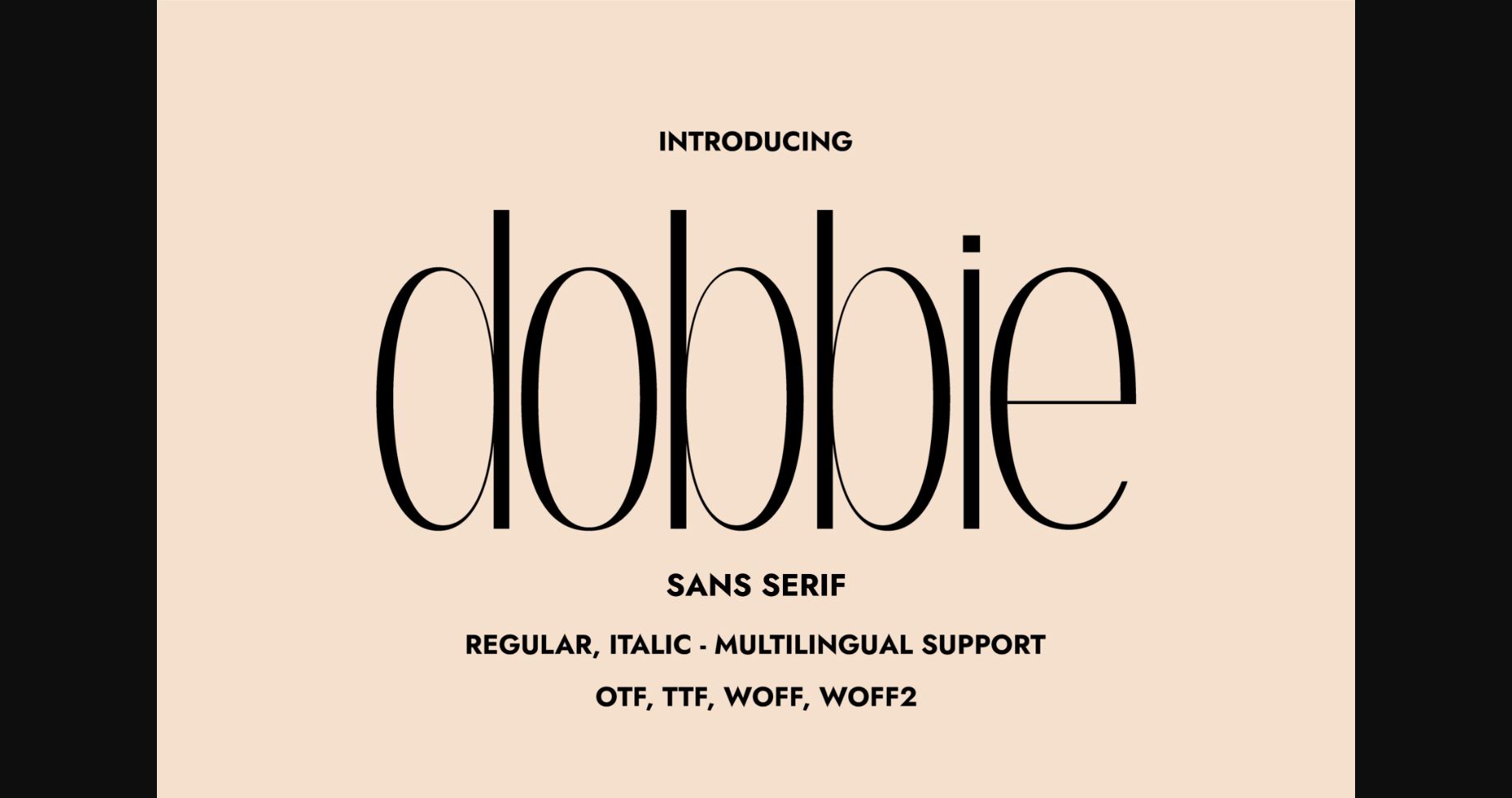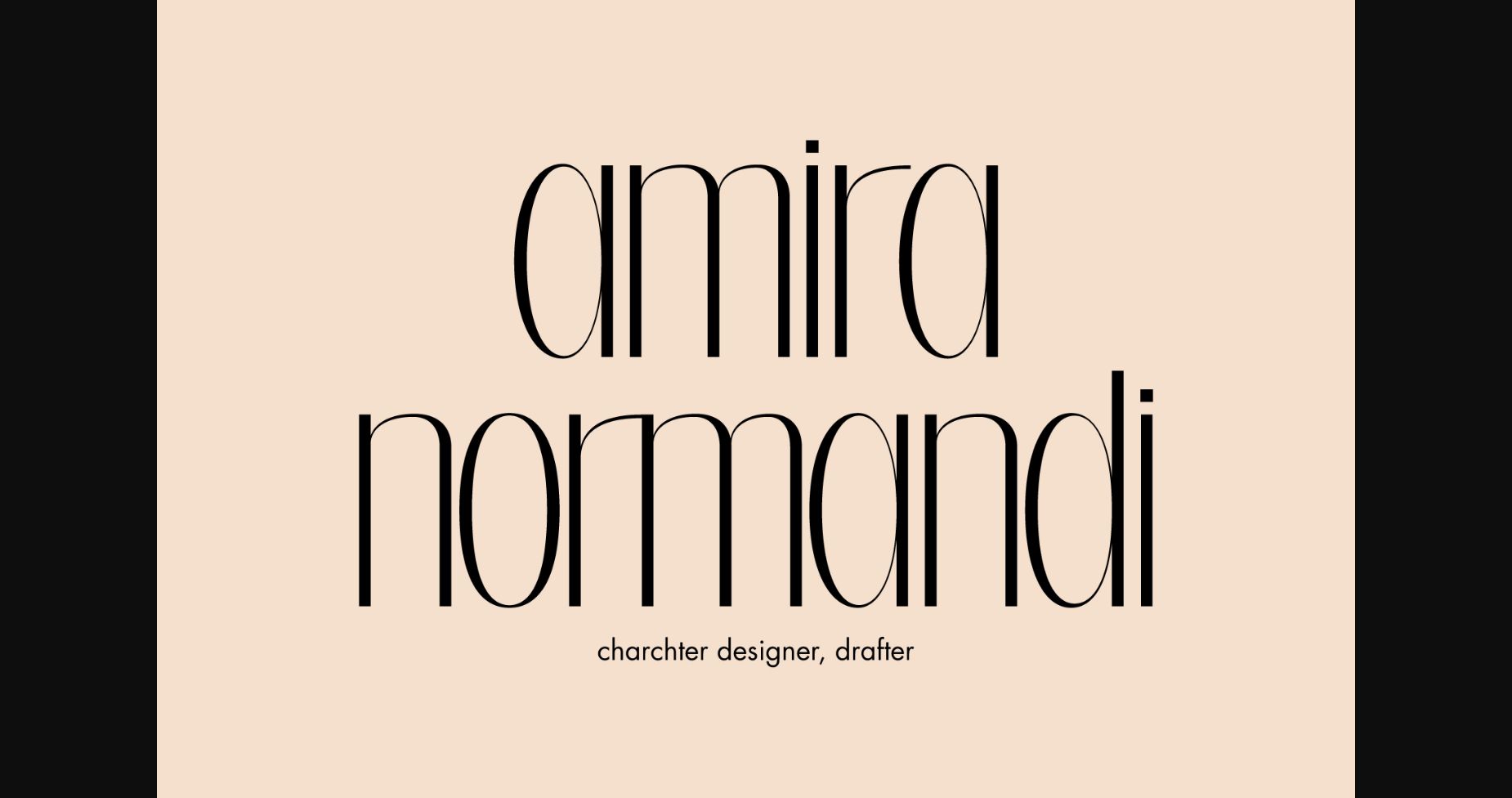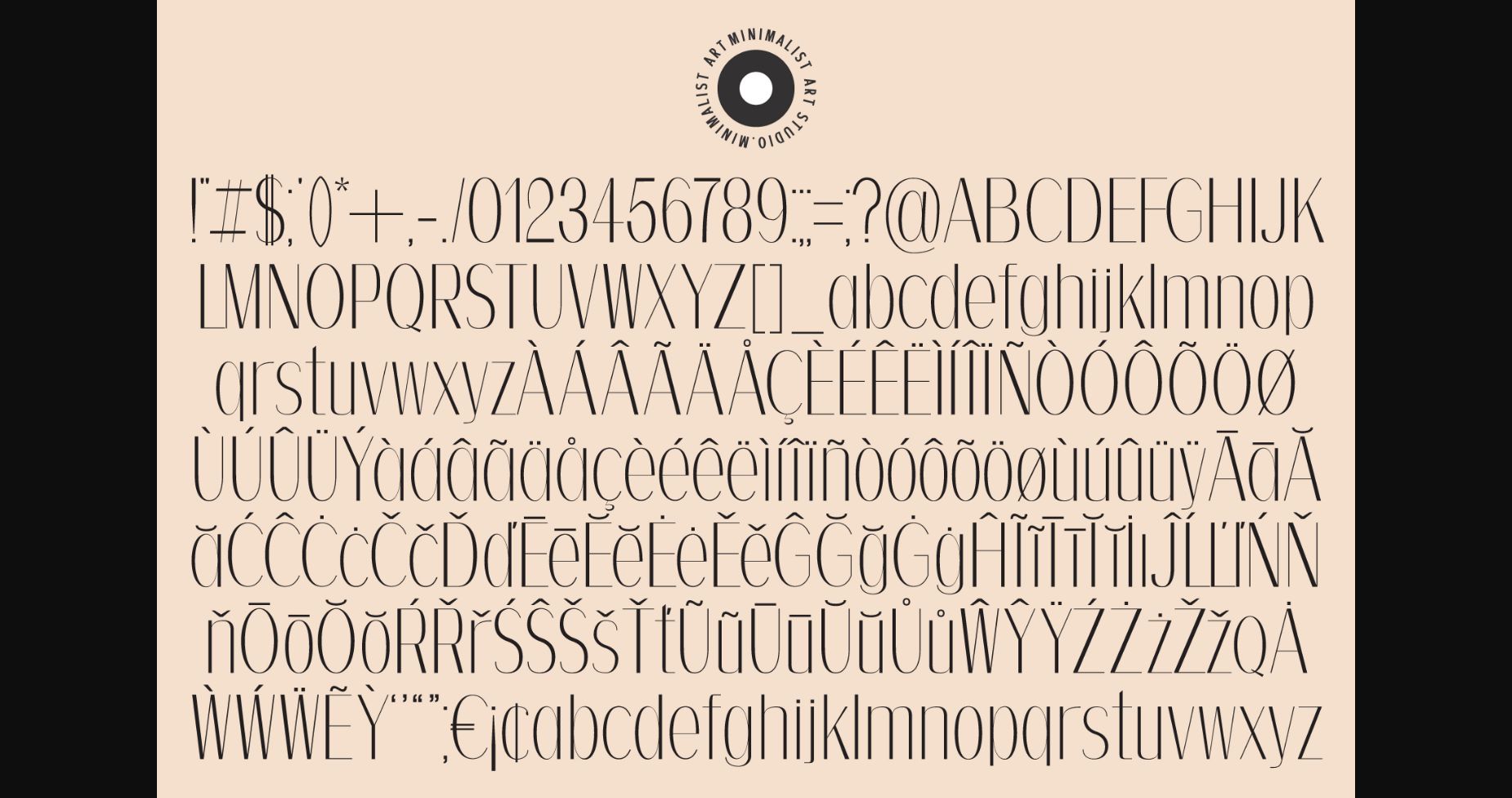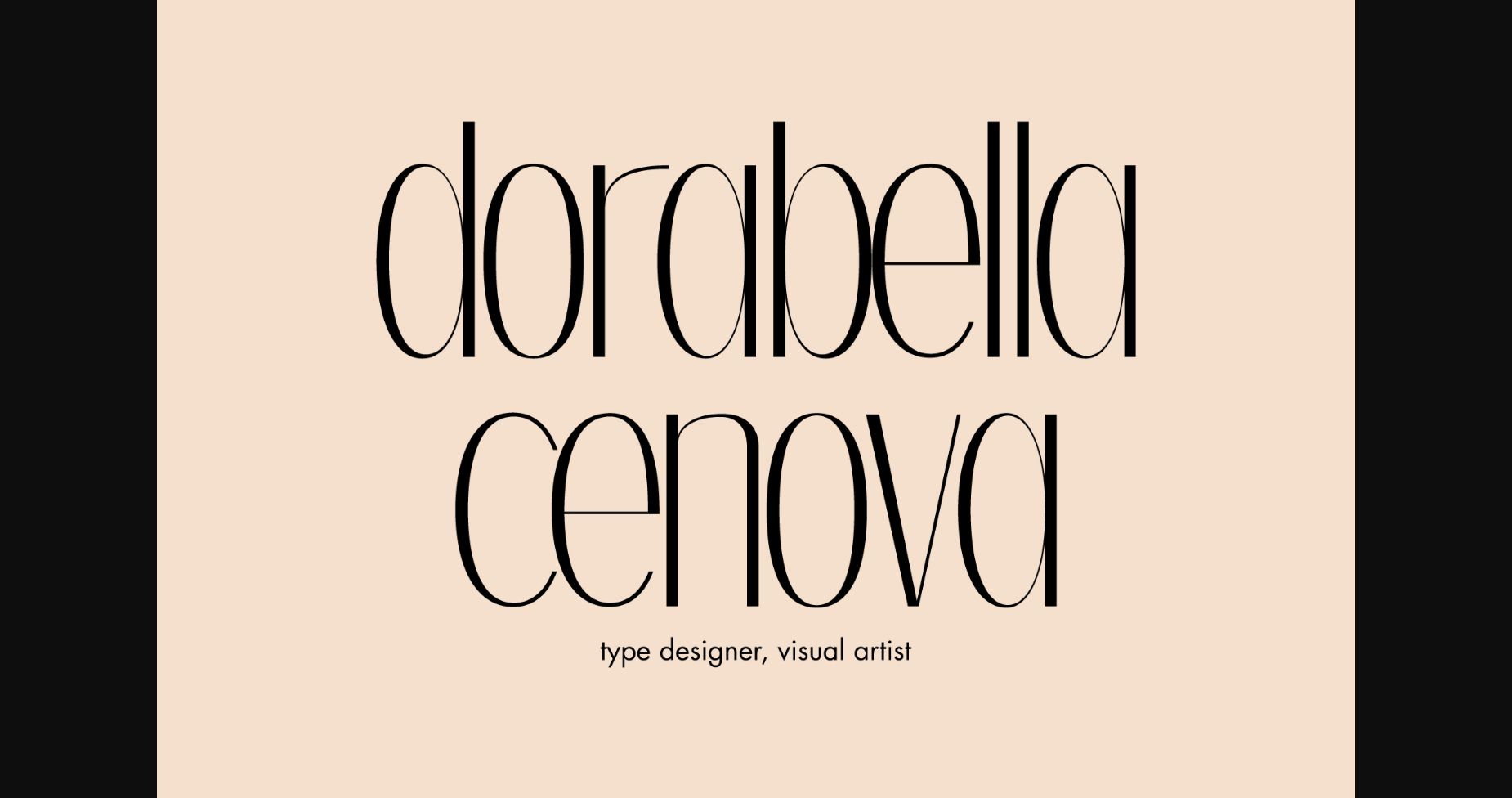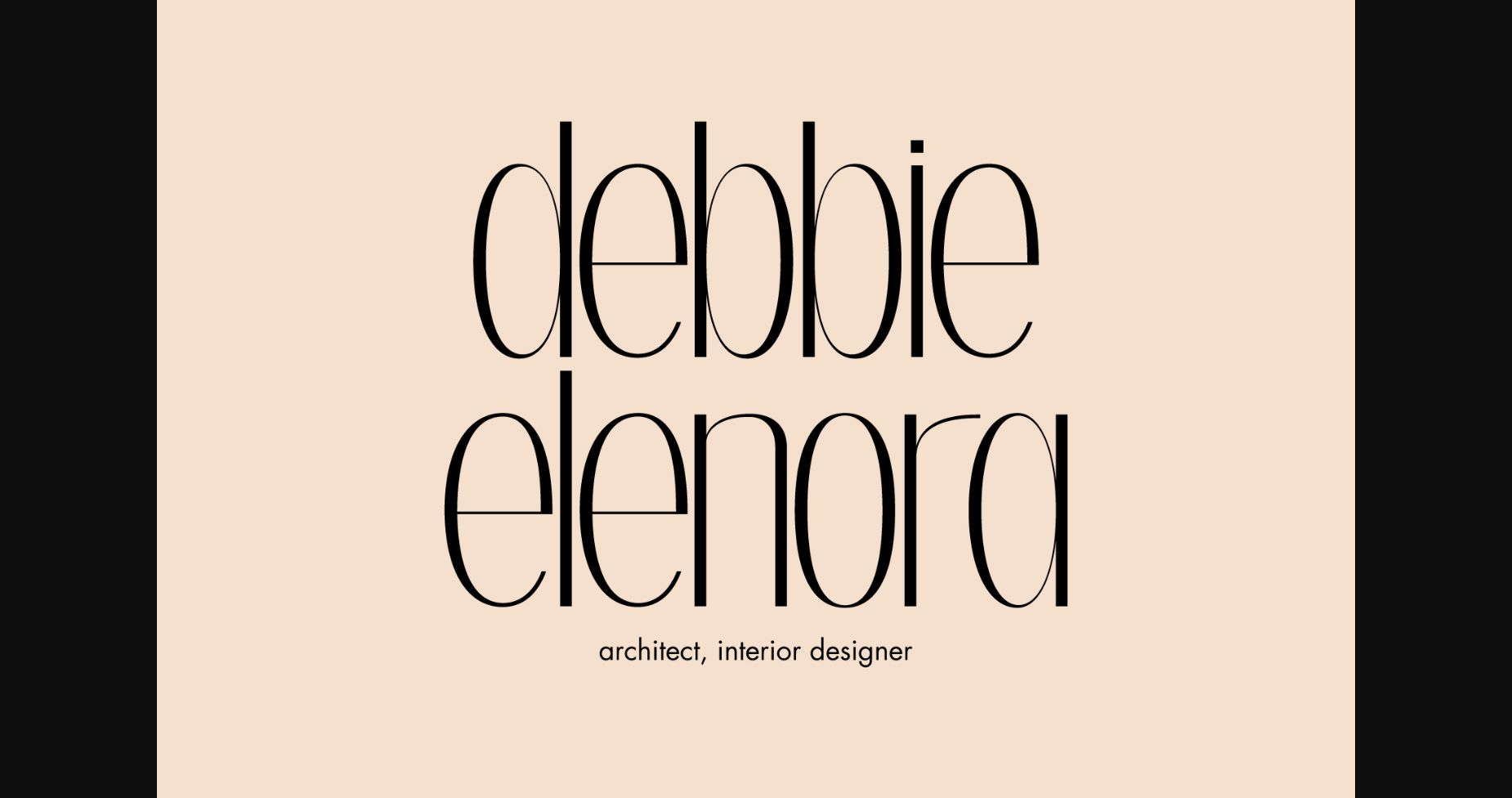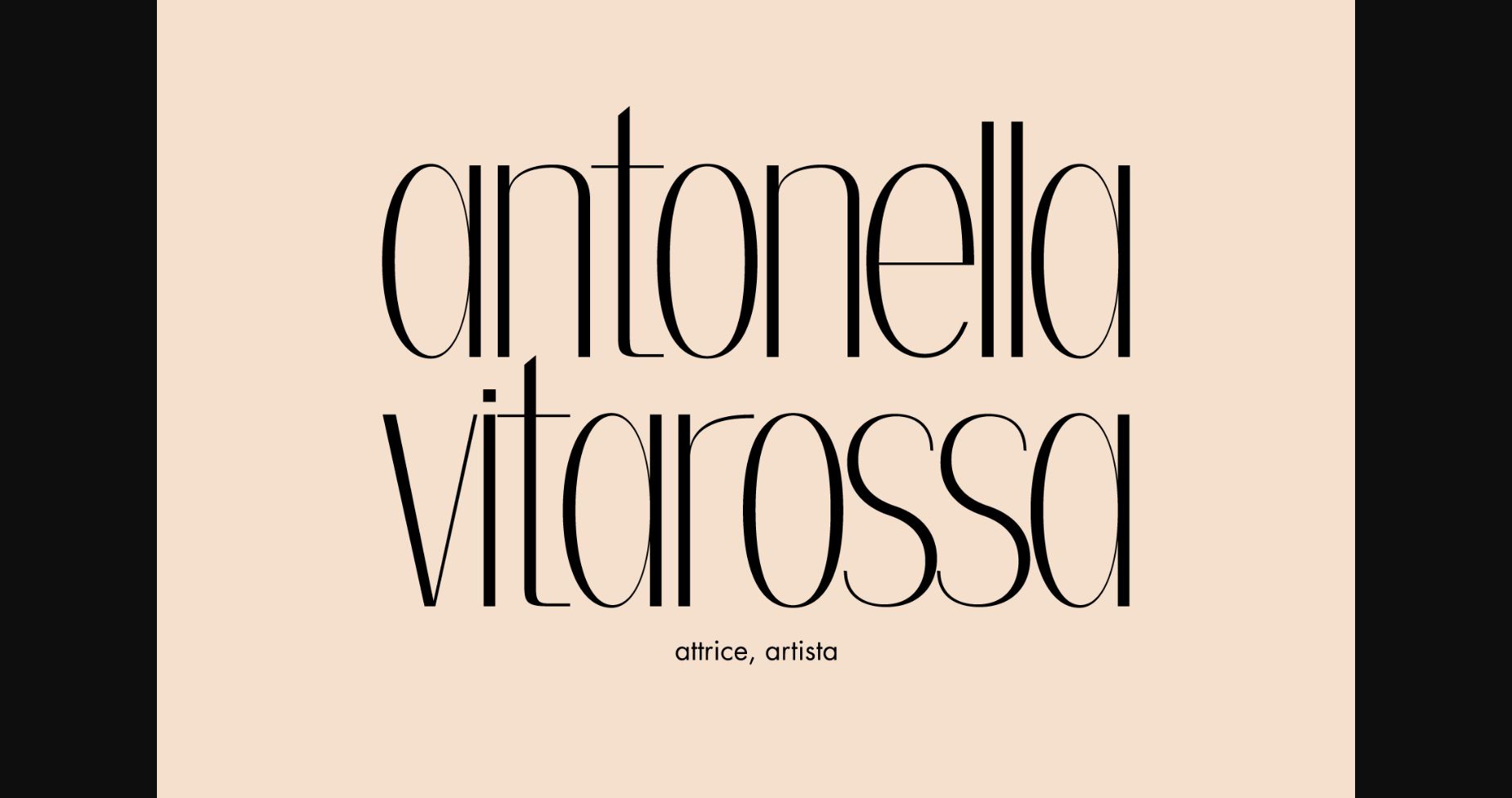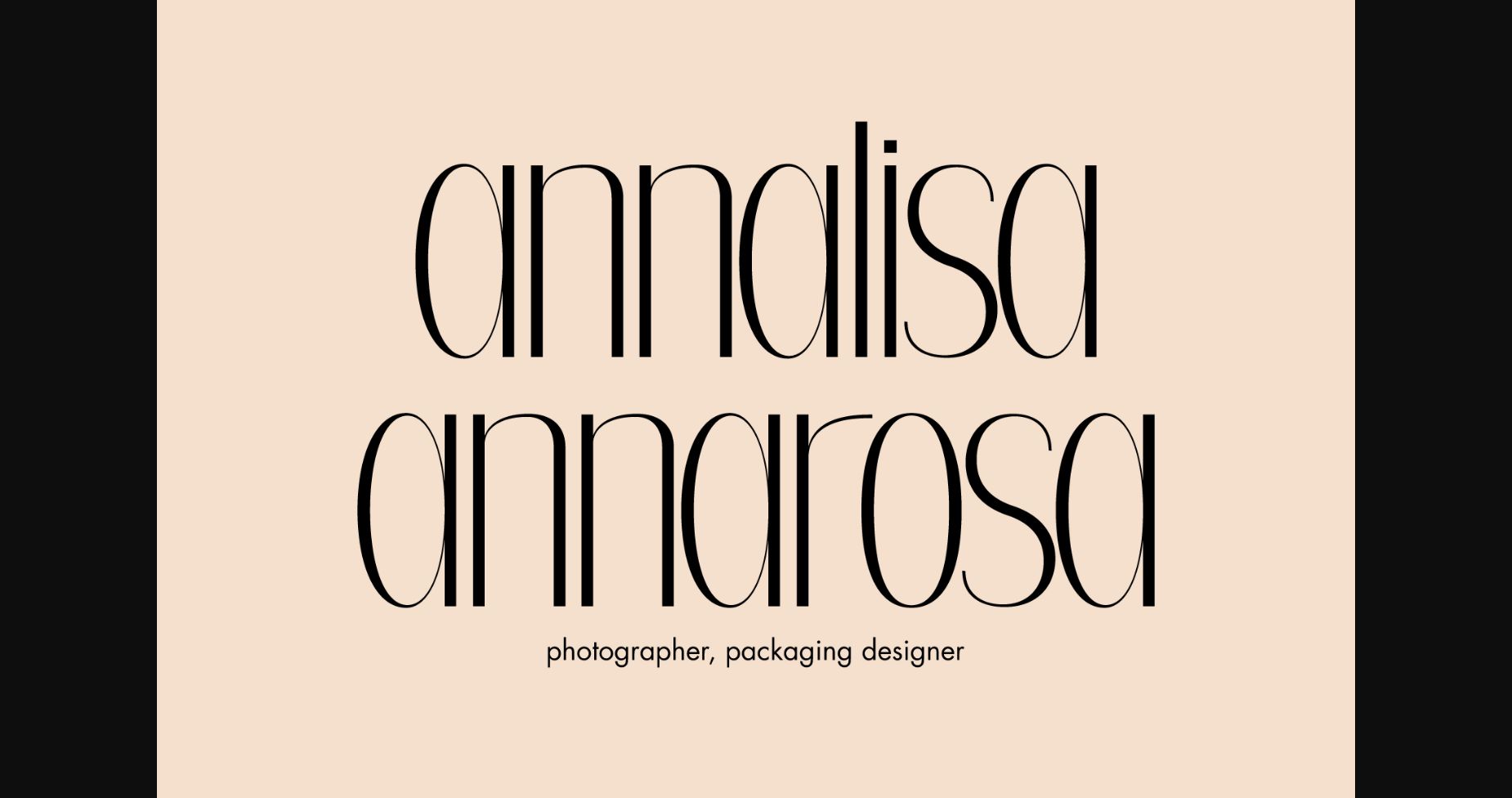
About Dobbie Font
Introducing Dobbie is a delicate, chic, and fluid sans serif font that’s perfect for adding a touch of elegance and sophistication to any project.
The smooth curves and clean lines of Dobbie create a refined and polished look that’s perfect for everything from fashion branding to editorial layouts. Its subtle details and unique letterforms give it a distinctive personality, making it stand out from other sans-serif fonts on the market.